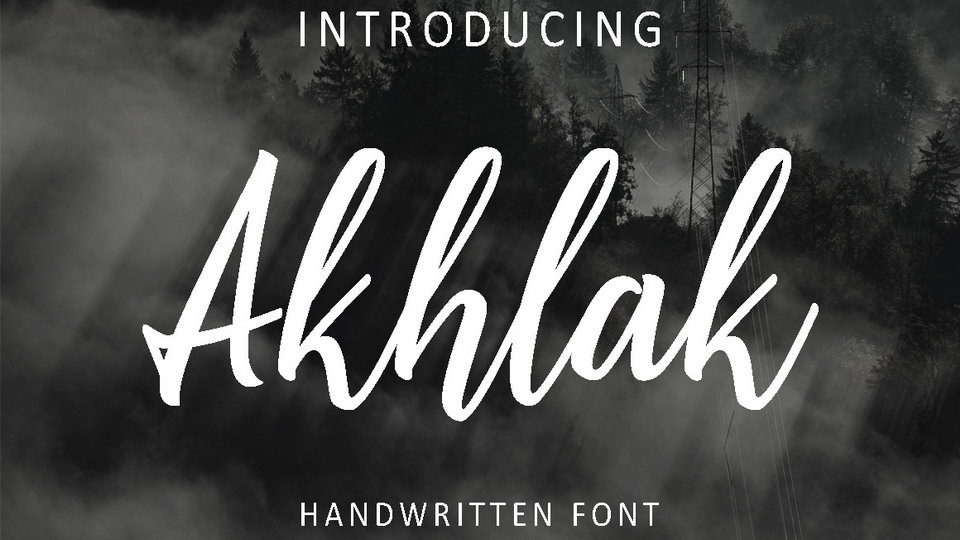
Download Akhlak font, a stylish modern calligraphy script with free and natural flow. Very suitable for greeting cards, branding materials, business cards, quotes, posters, and more!